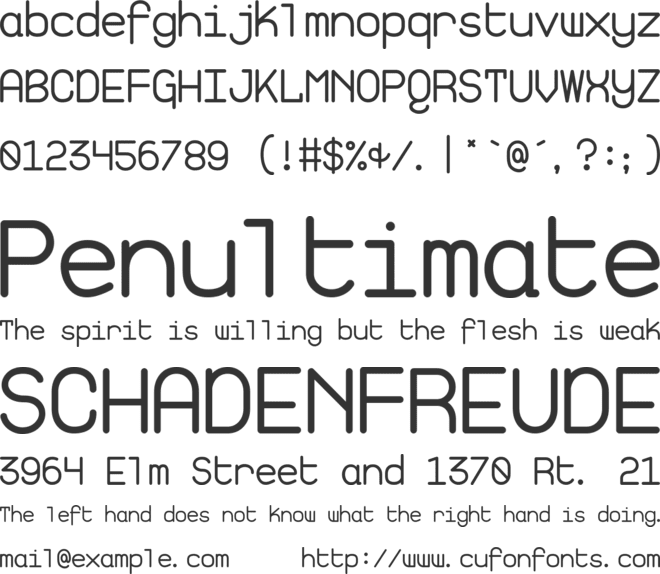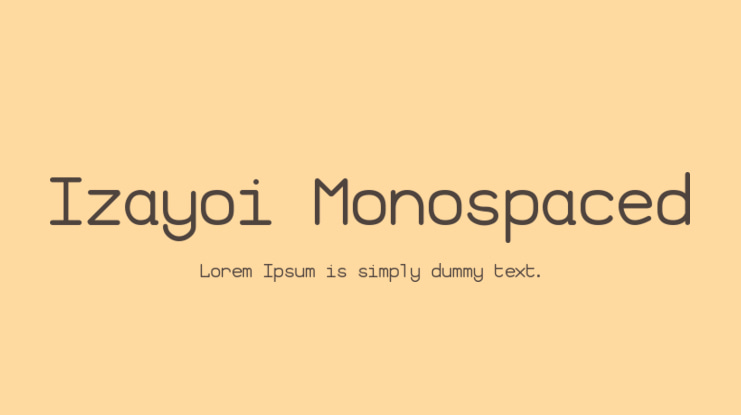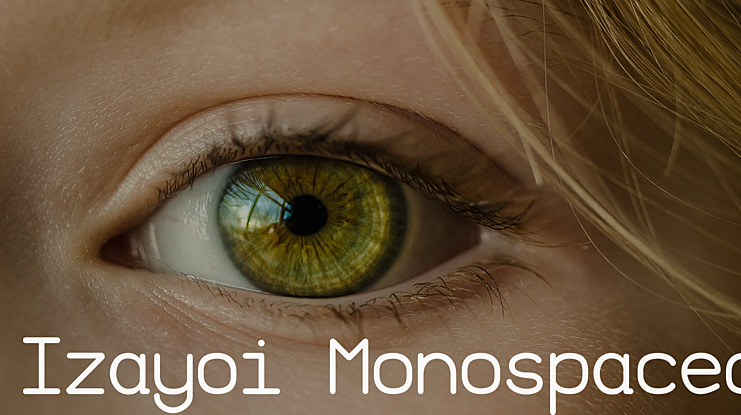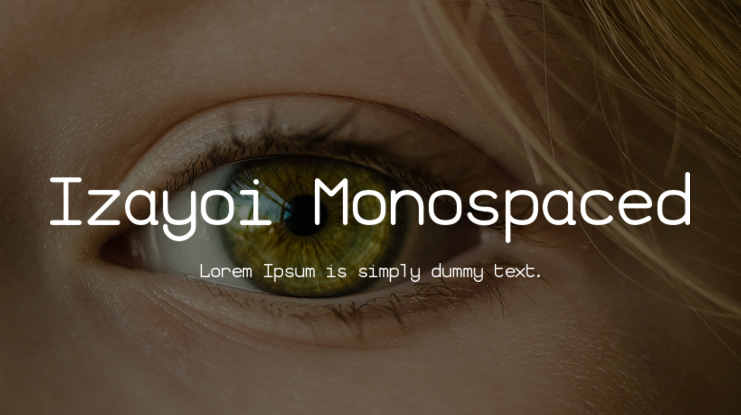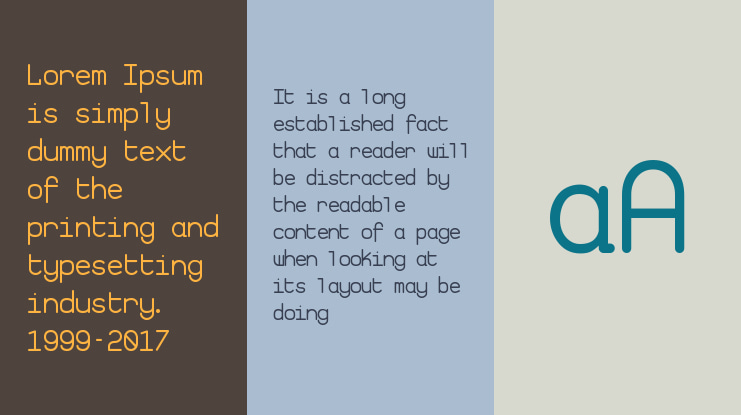
Izayoi Monospaced Font
Izayoi Monospaced is a retro-like monospaced rounded sans-serif font with a slighter thickness from Courier and give compliance with video subtitles. It has an extensive language support to cover most of the languages that use the Latin alphabets. It is the one of the most powerful fonts from Heaven Castro Studios to provide the video subtitle display. Unlike Cinecav™, it is free for commercial use. While most pre-packaged fonts that aren't suitable for video subtitles, it was designed specifically for meeting FCC EIA-708B requirements (also known as CEA-708). See the enclosed text file for FAQs.